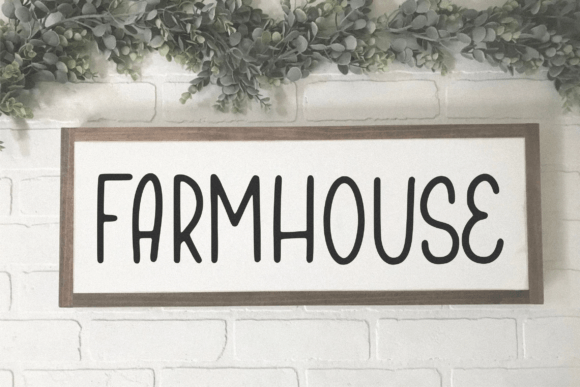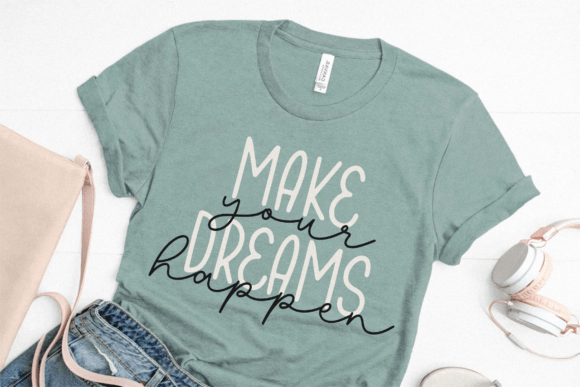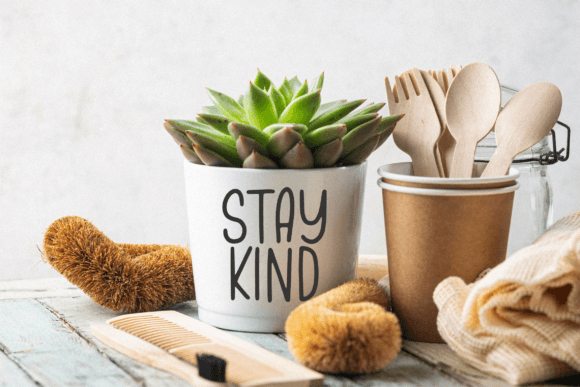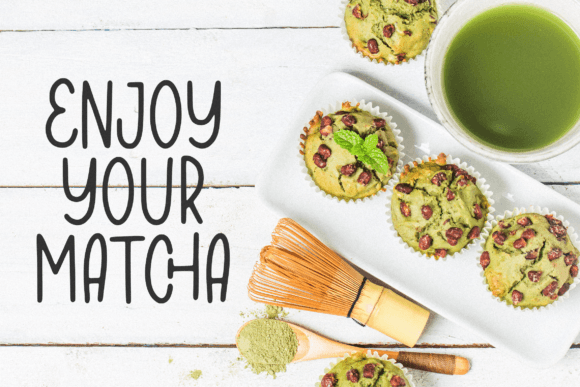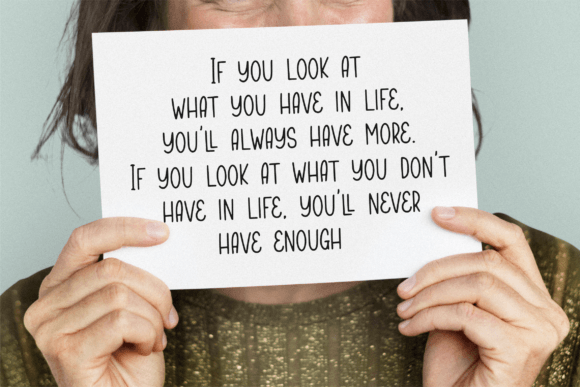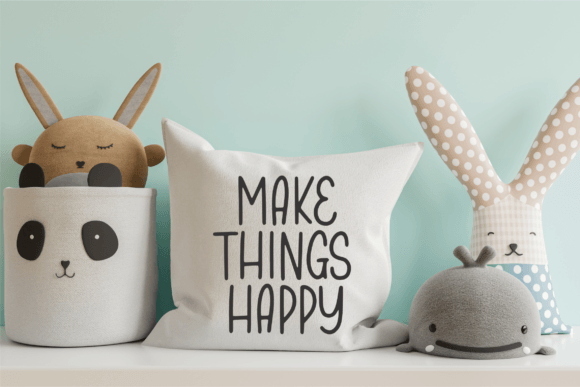
Introducing Classy Matcha: The Ultimate Tall Handwritten Font for Creative Projects
Are you on the hunt for a font that exudes elegance and sophistication? Look no further than Classy Matcha, a stunning tall handwritten font that’s perfect for a wide range of creative projects. In this article, we’ll dive into the world of Classy Matcha, exploring its features, uses, and benefits for designers and crafters alike.
What is Classy Matcha?
Classy Matcha is a beautiful tall handwritten font that’s designed to add a touch of class and refinement to any project. Its elegant strokes and flowing lines make it perfect for use in product packaging, branding projects, magazines, social media, weddings, and more. Whether you’re looking to create a luxurious brand identity or simply want to add some flair to your designs, Classy Matcha is the perfect choice.
Key Features of Classy Matcha
So, what sets Classy Matcha apart from other fonts? Here are some of its key features:
- Tall and elegant: Classy Matcha is a tall font that’s designed to make a statement. Its elegant strokes and flowing lines give it a refined and sophisticated feel.
- Handwritten: Unlike traditional fonts, Classy Matcha has a handwritten feel that’s warm and inviting.
- Versatile: Classy Matcha is perfect for use in a wide range of projects, from product packaging and branding to magazines and social media.
- Easy to read: Despite its elegant feel, Classy Matcha is easy to read and understand, making it perfect for use in body text and headlines.
Uses for Classy Matcha
So, what can you use Classy Matcha for? The possibilities are endless! Here are some ideas to get you started:
- Product packaging: Add a touch of elegance to your product packaging with Classy Matcha. It’s perfect for use on labels, cartons, and more.
- Branding projects: Create a luxurious brand identity with Classy Matcha. Use it for logos, business cards, and other marketing materials.
- Magazines and publications: Add some flair to your magazine or publication with Classy Matcha. It’s perfect for use in headlines, subheadings, and body text.
- Social media: Stand out on social media with Classy Matcha. Use it to create eye-catching graphics, posts, and stories.
- Weddings and events: Add a touch of elegance to your wedding or event with Classy Matcha. Use it for invitations, programs, and other materials.
Benefits of Using Classy Matcha
So, why should you choose Classy Matcha for your next project? Here are some benefits to consider:
- Elegance and sophistication: Classy Matcha adds a touch of elegance and sophistication to any project.
- Versatility: Classy Matcha is perfect for use in a wide range of projects, from product packaging to social media.
- Easy to read: Classy Matcha is easy to read and understand, making it perfect for use in body text and headlines.
- Unique and creative: Classy Matcha is a unique and creative font that’s sure to make your project stand out.
| Author | qwrtypefoundry |
In conclusion, Classy Matcha is a stunning tall handwritten font that’s perfect for designers and crafters looking to add a touch of elegance and sophistication to their projects. With its elegant strokes, flowing lines, and versatile uses, Classy Matcha is the perfect choice for anyone looking to create a luxurious brand identity or simply add some flair to their designs. So why wait? Try Classy Matcha today and see the difference it can make!